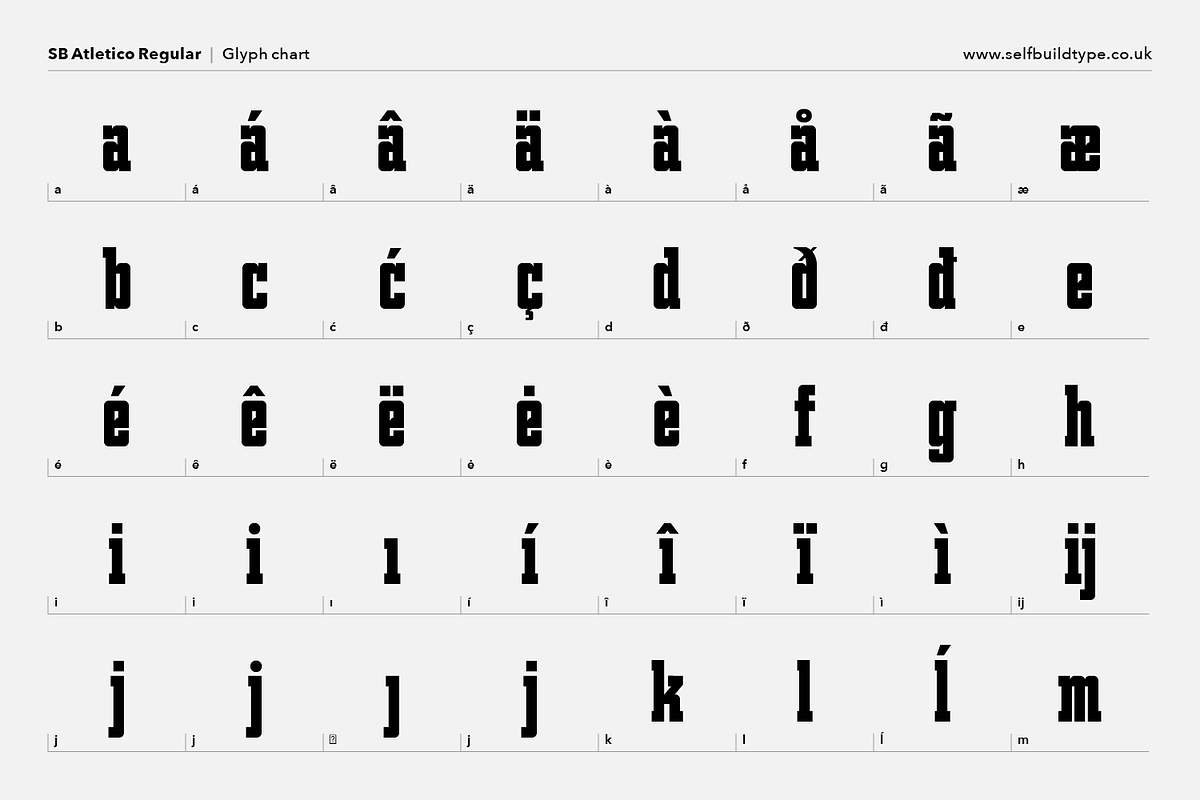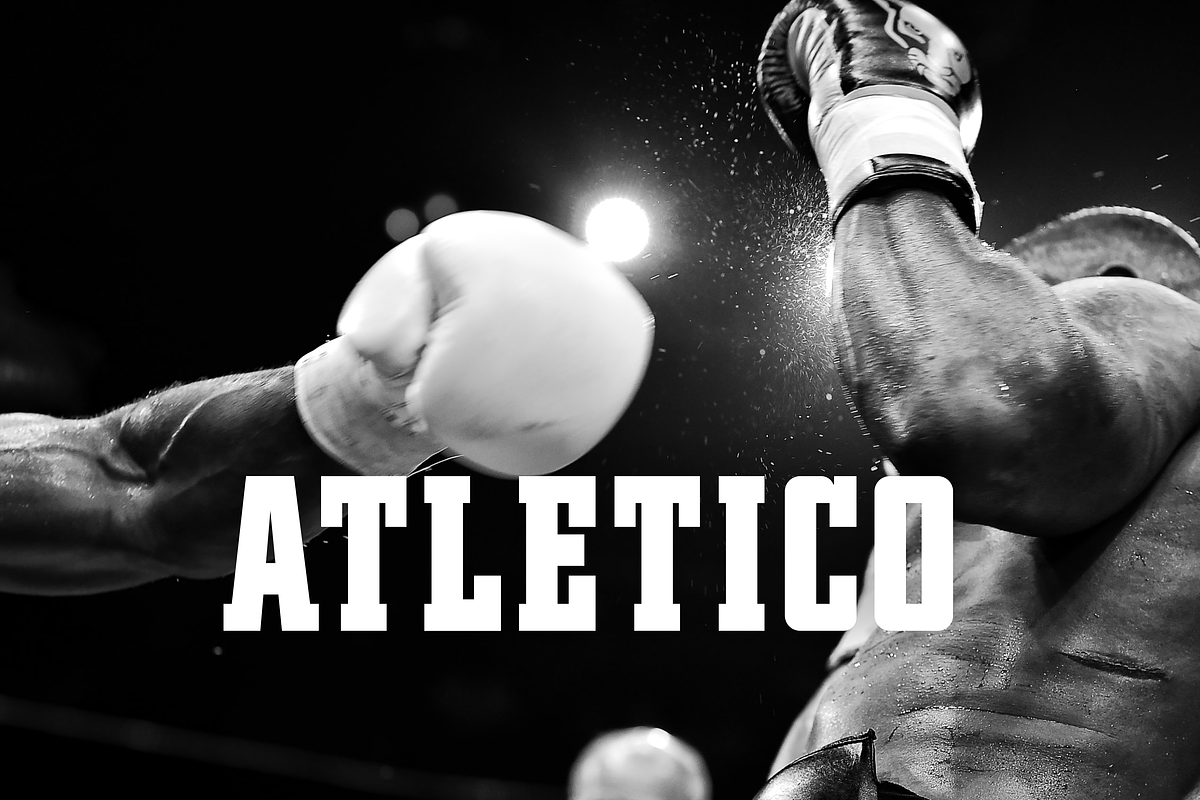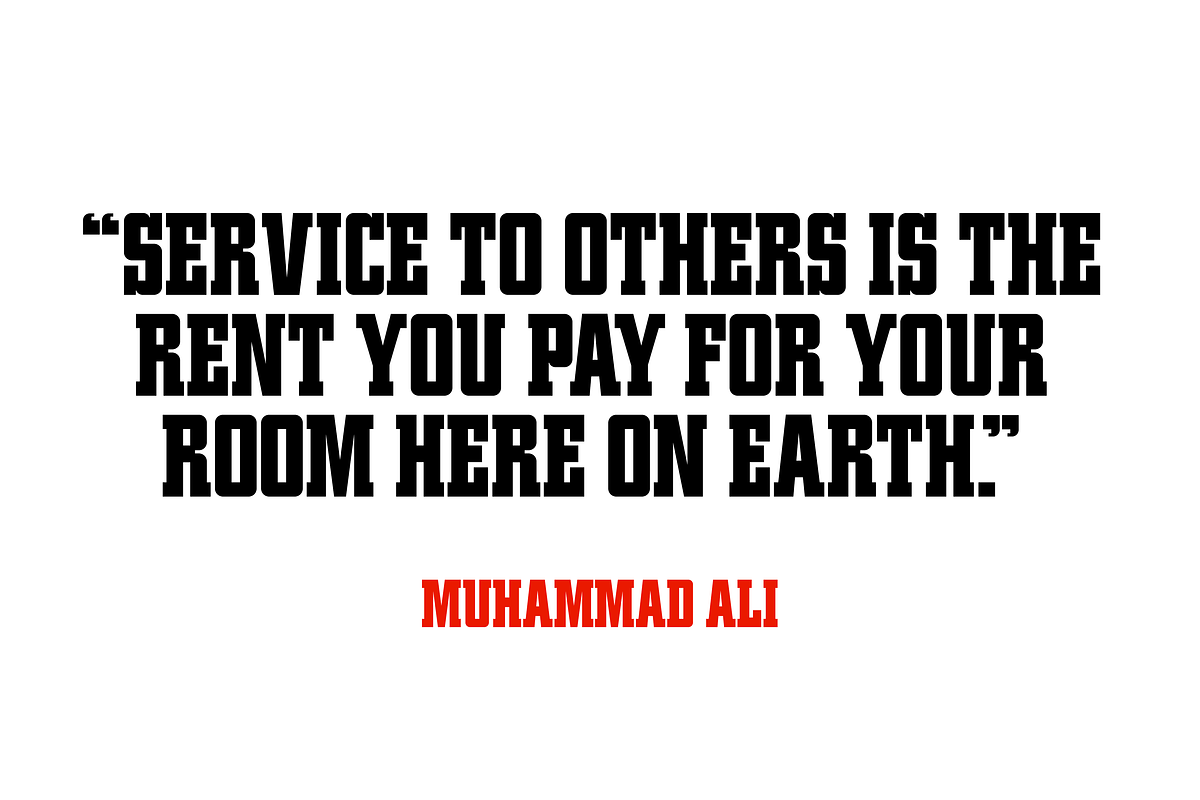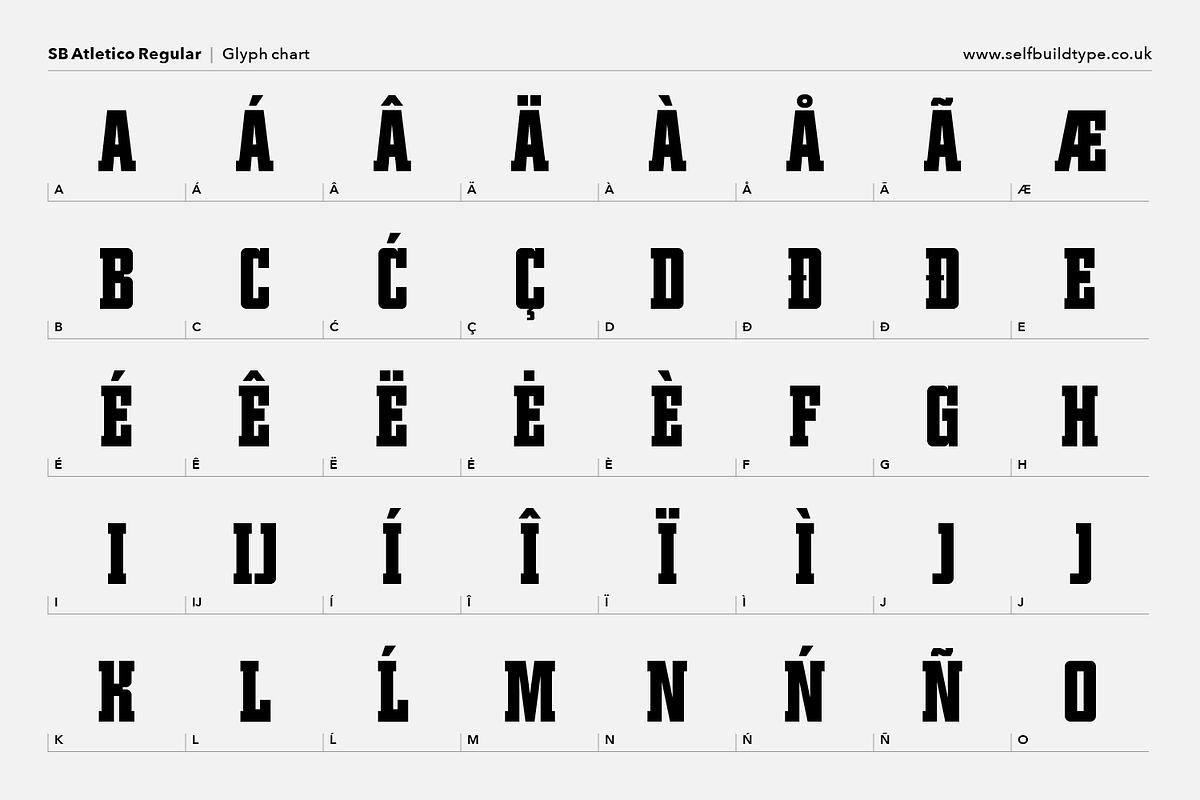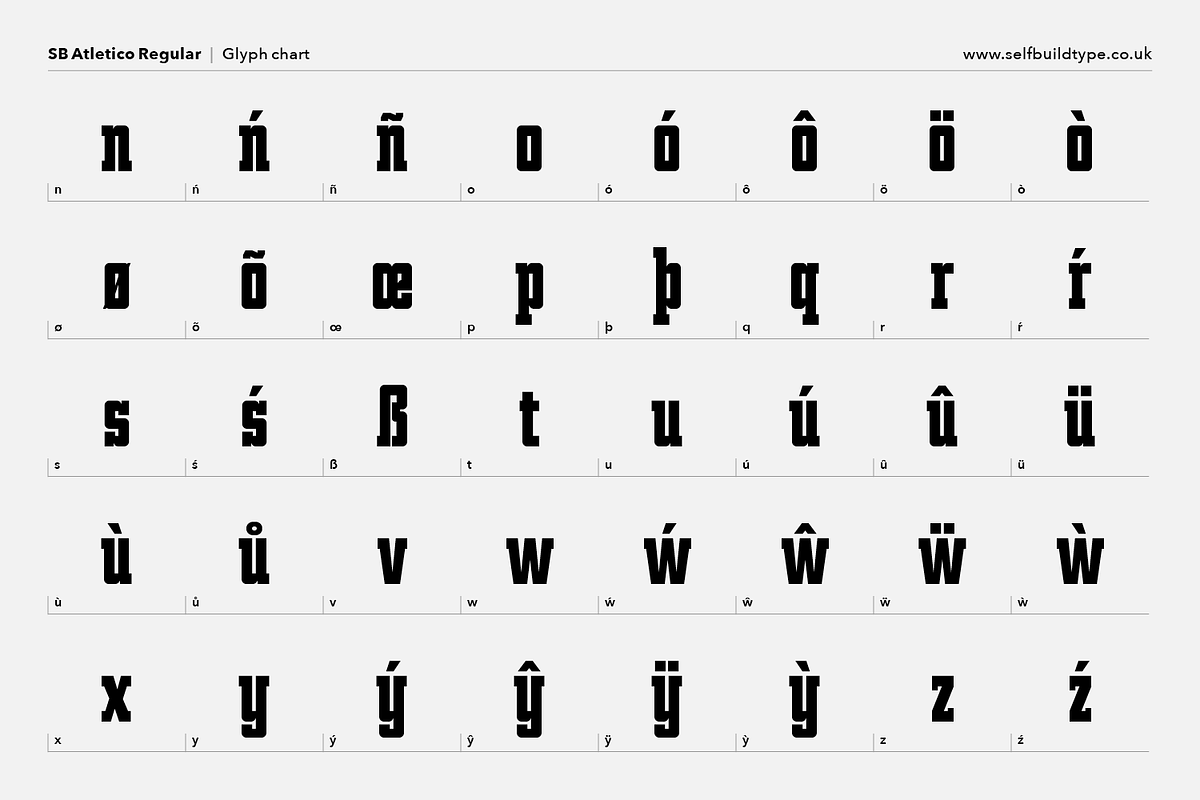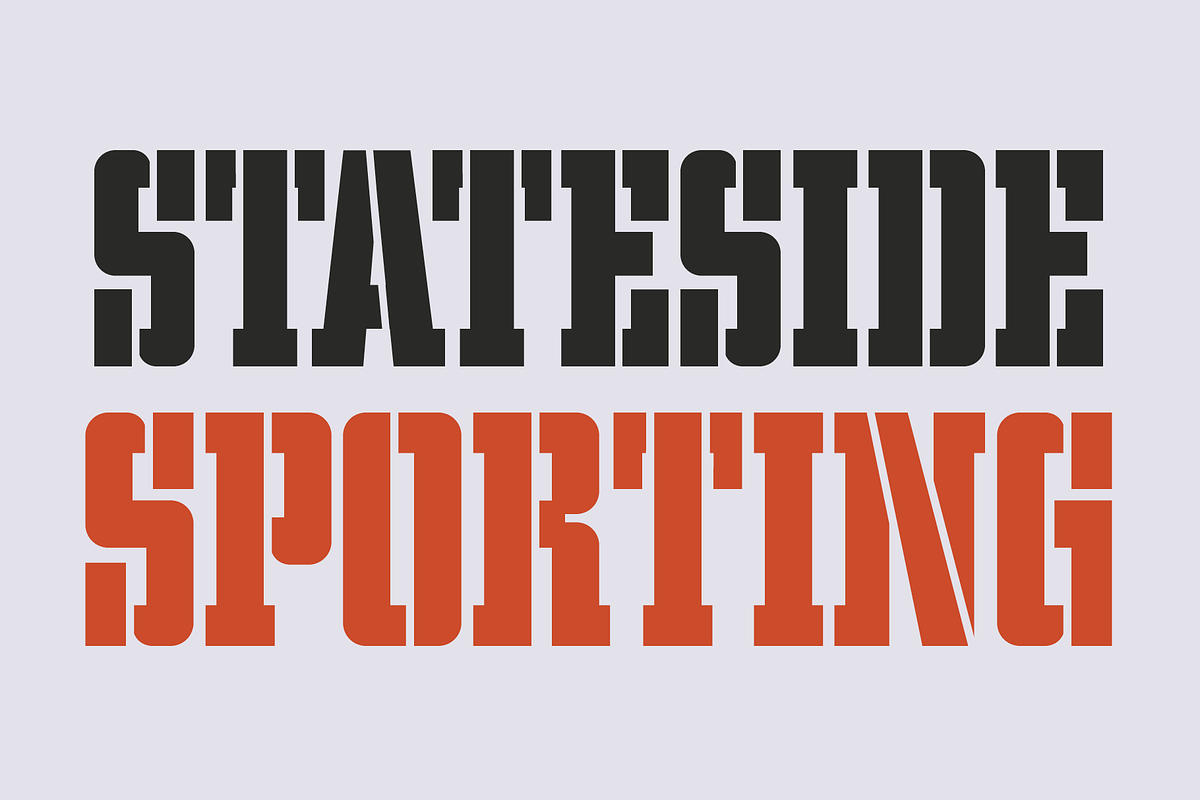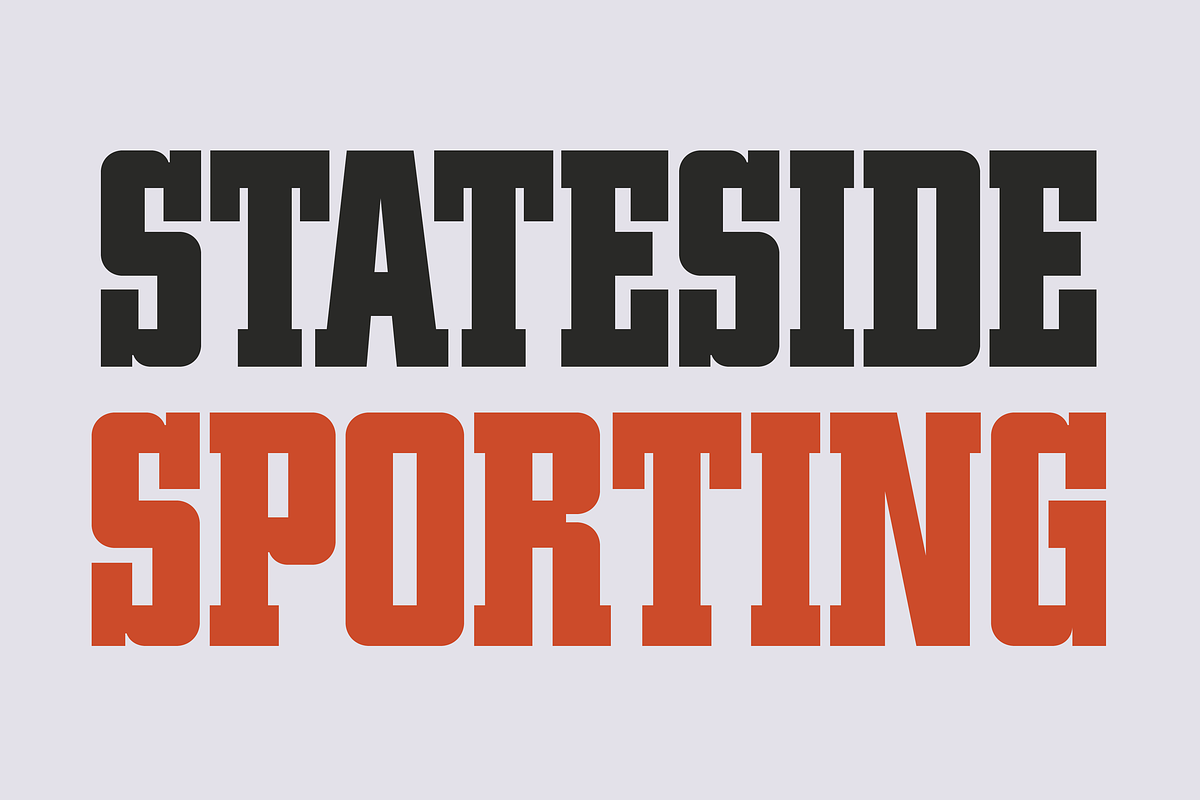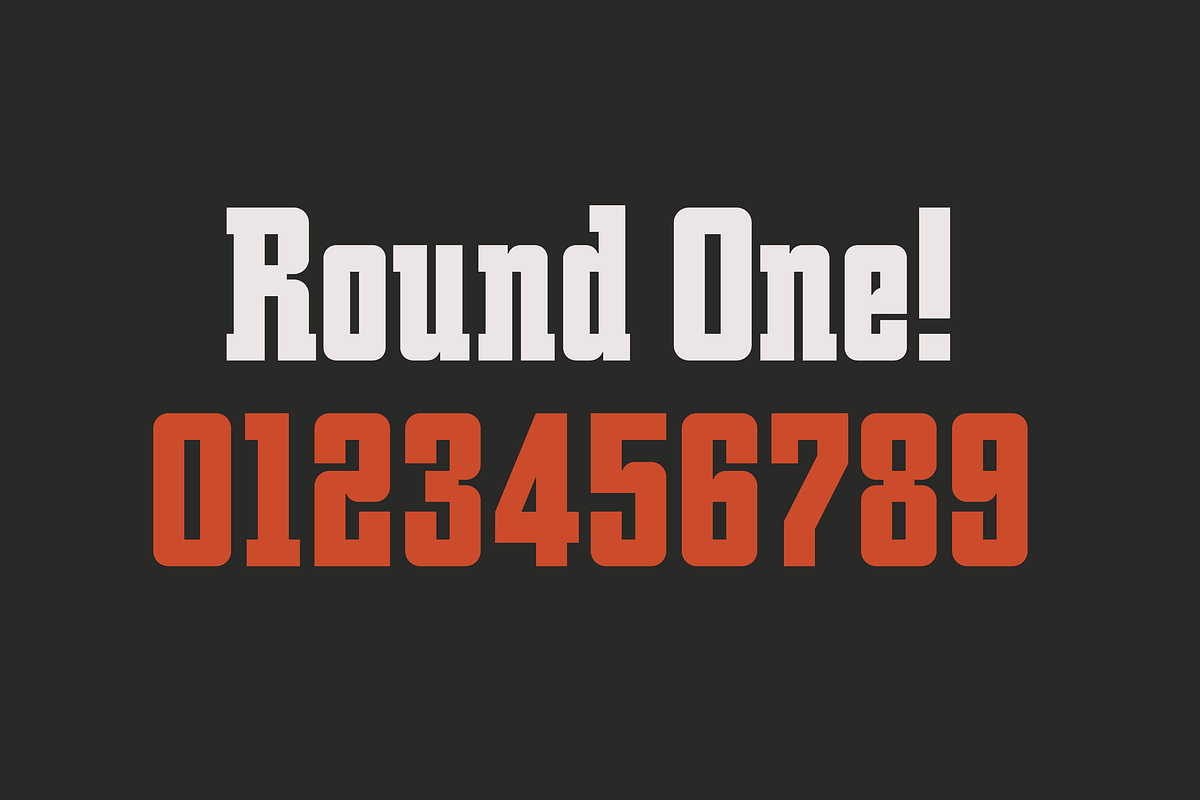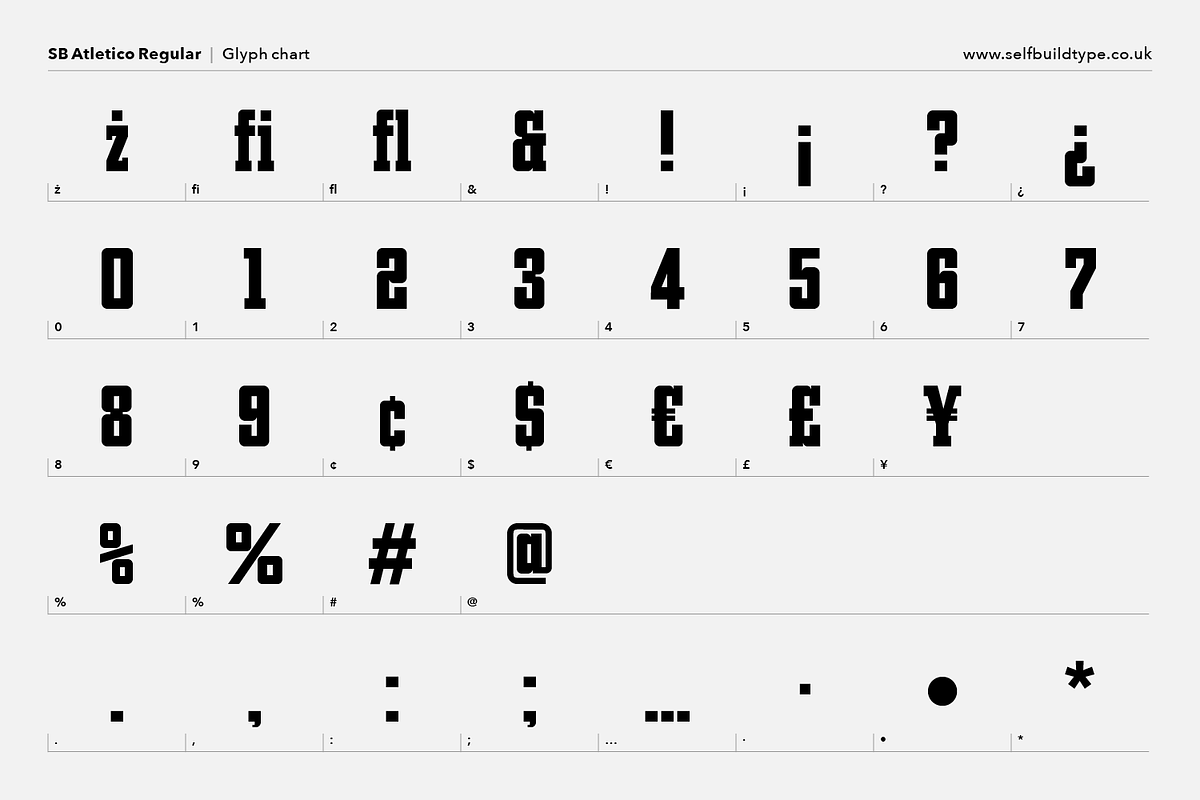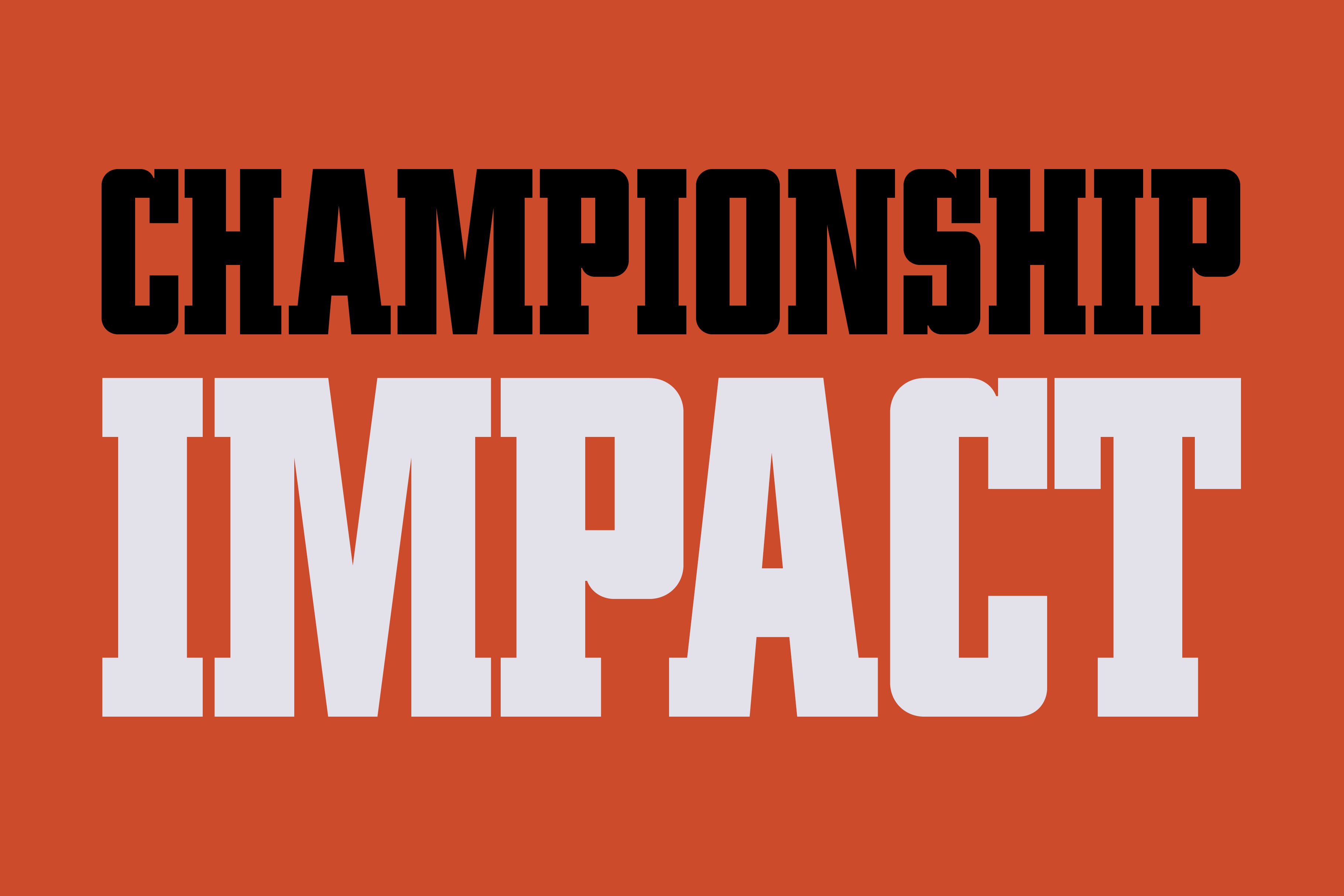
Atletico slab serif (3 fonts)
SB Atletico is a bold slab serif designed to be used as a high impact display font. It is well suited to sports events, posters and editorial work. This font also includes a distressed version.
- This font contains 3 versions: Regular, Distressed and Stencil.